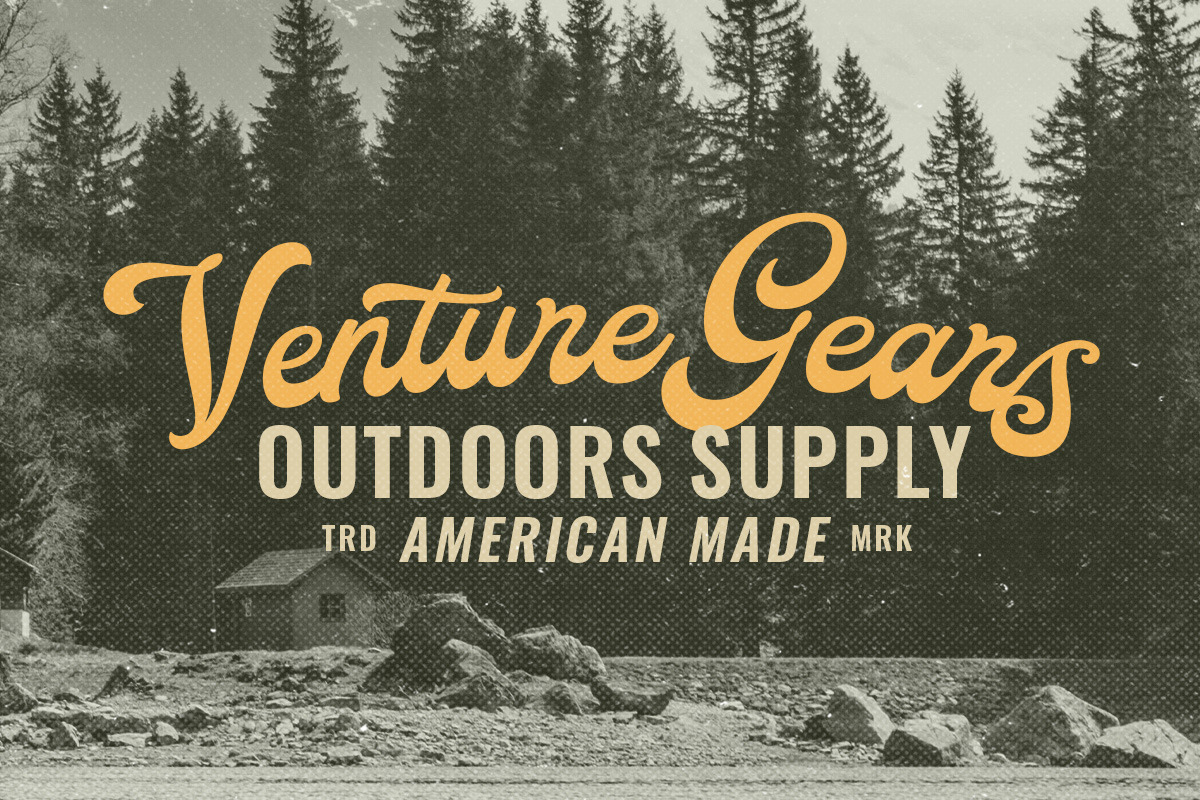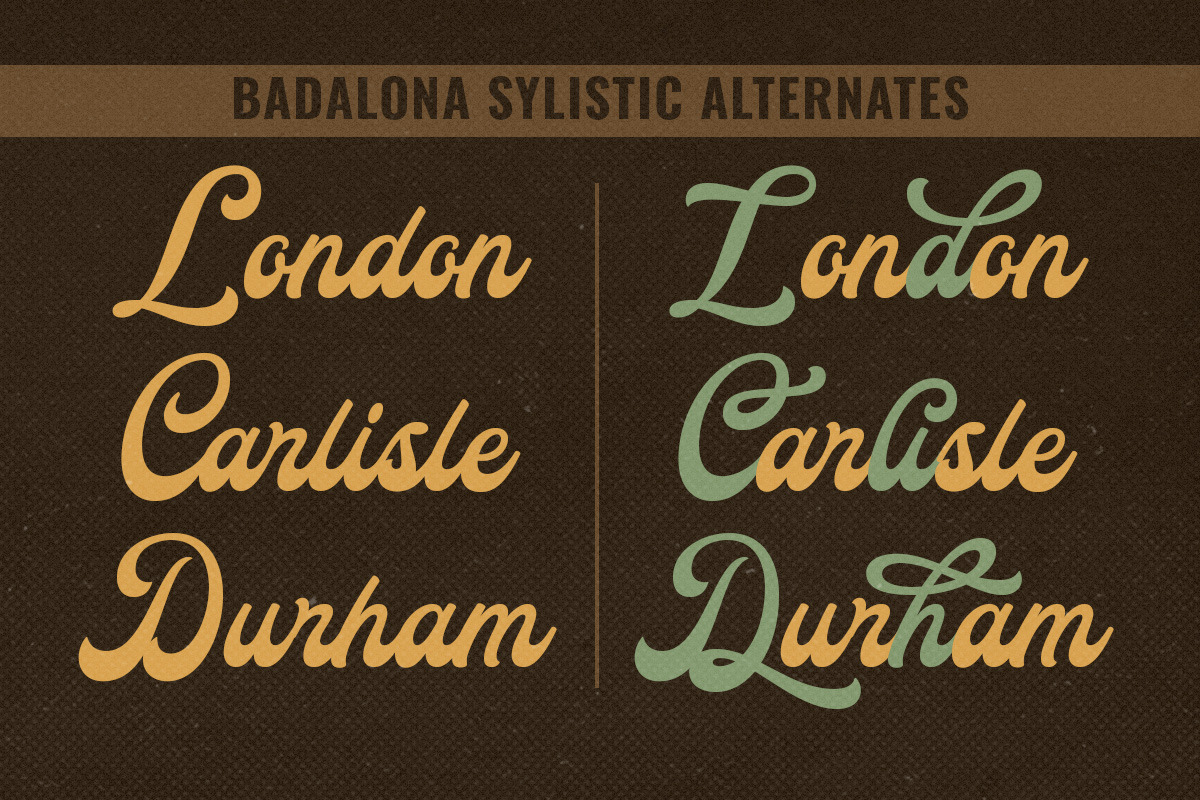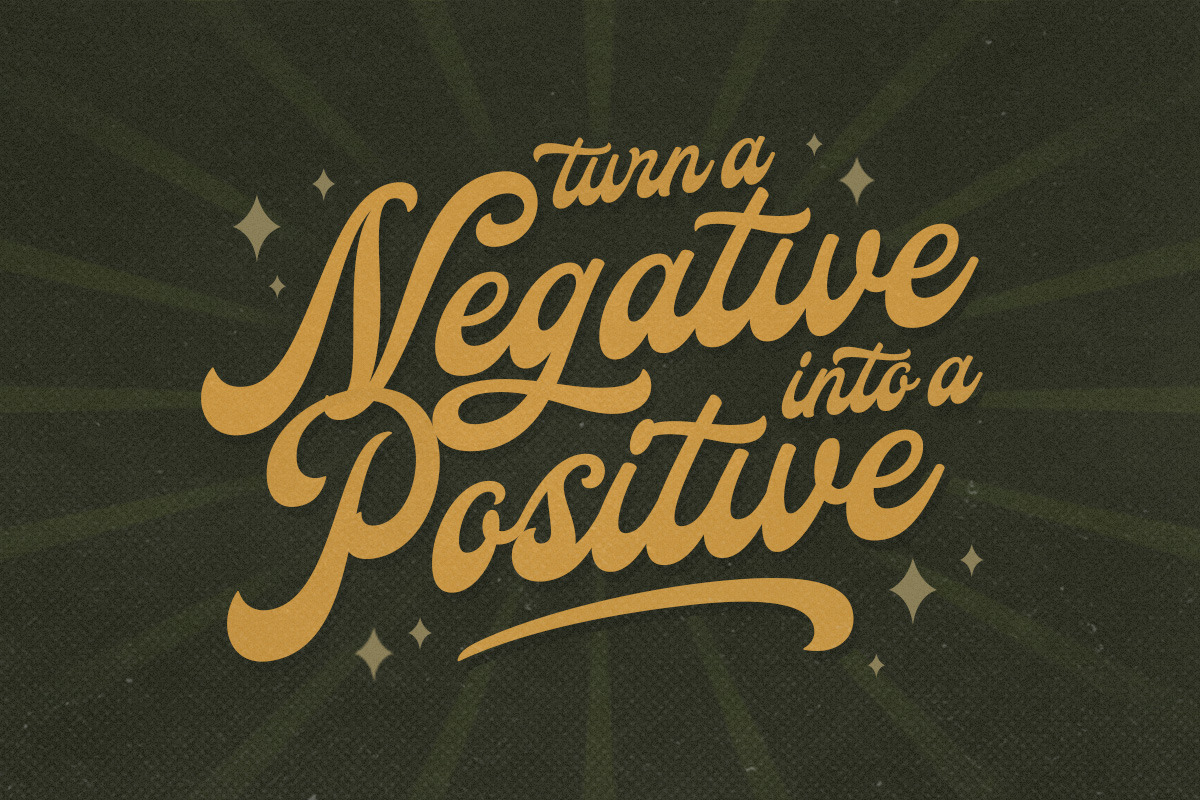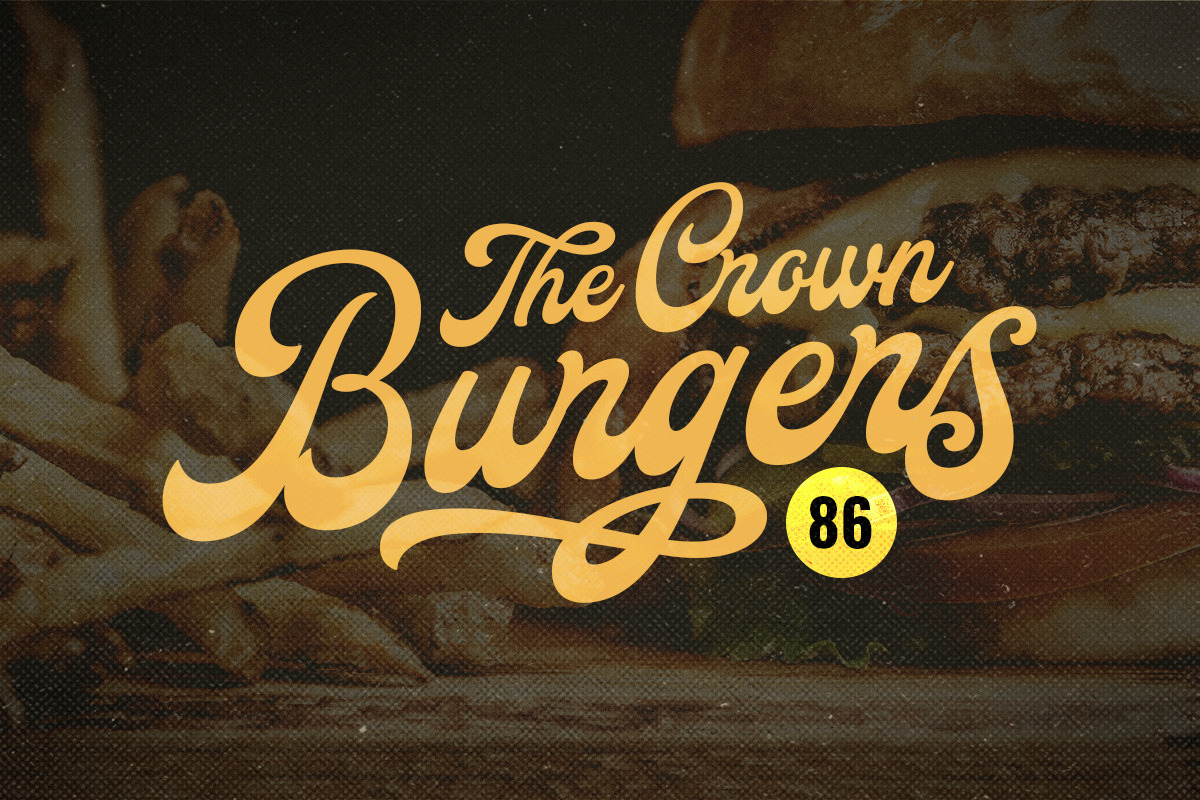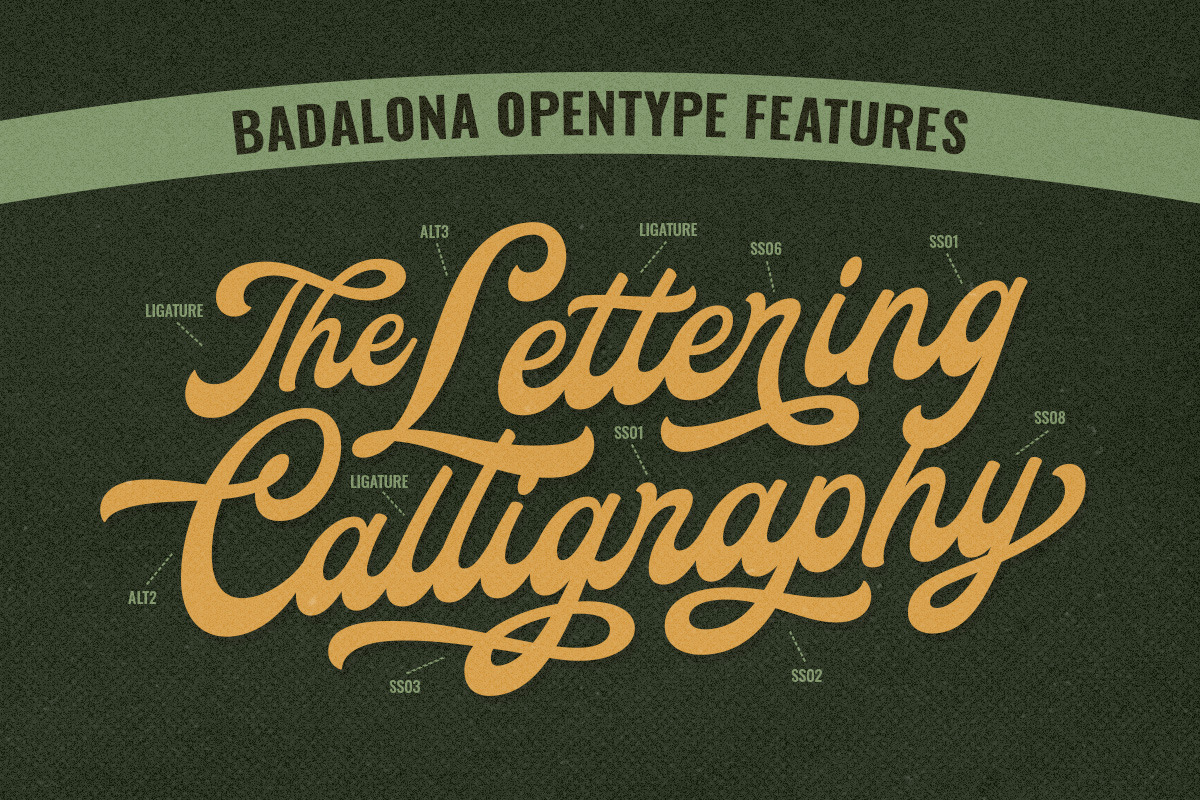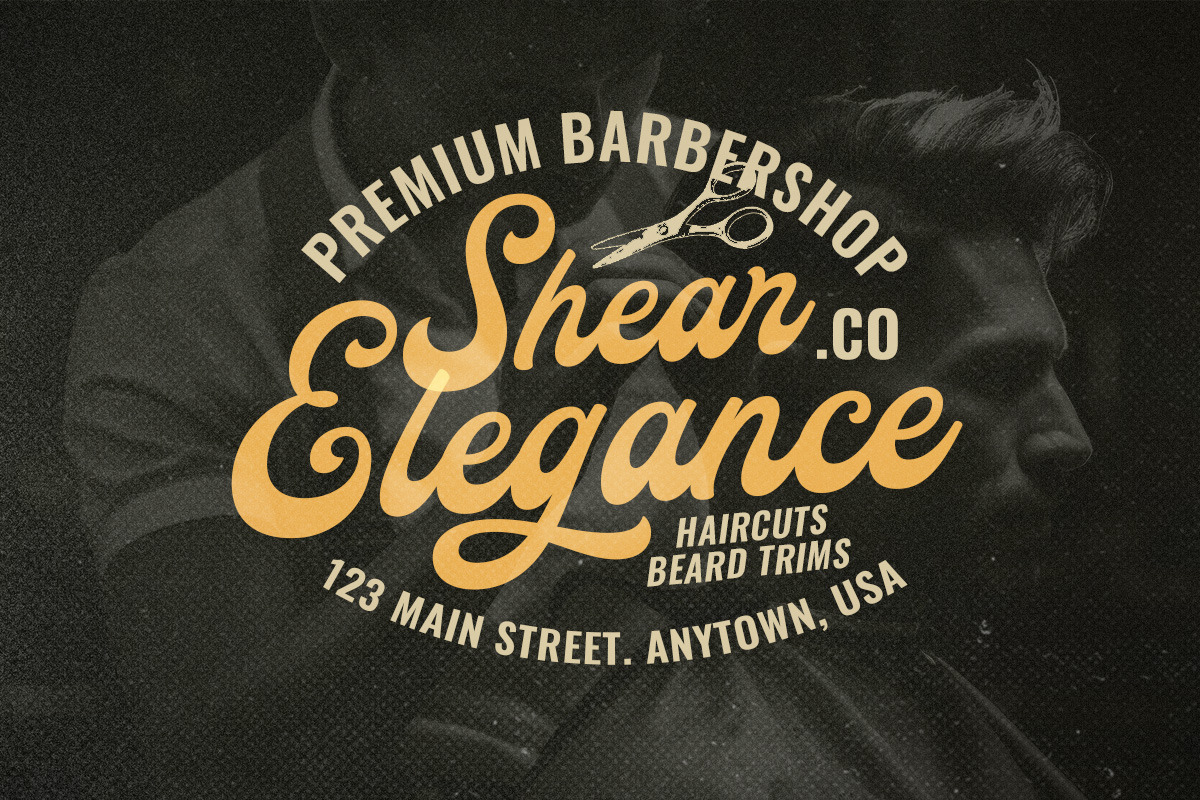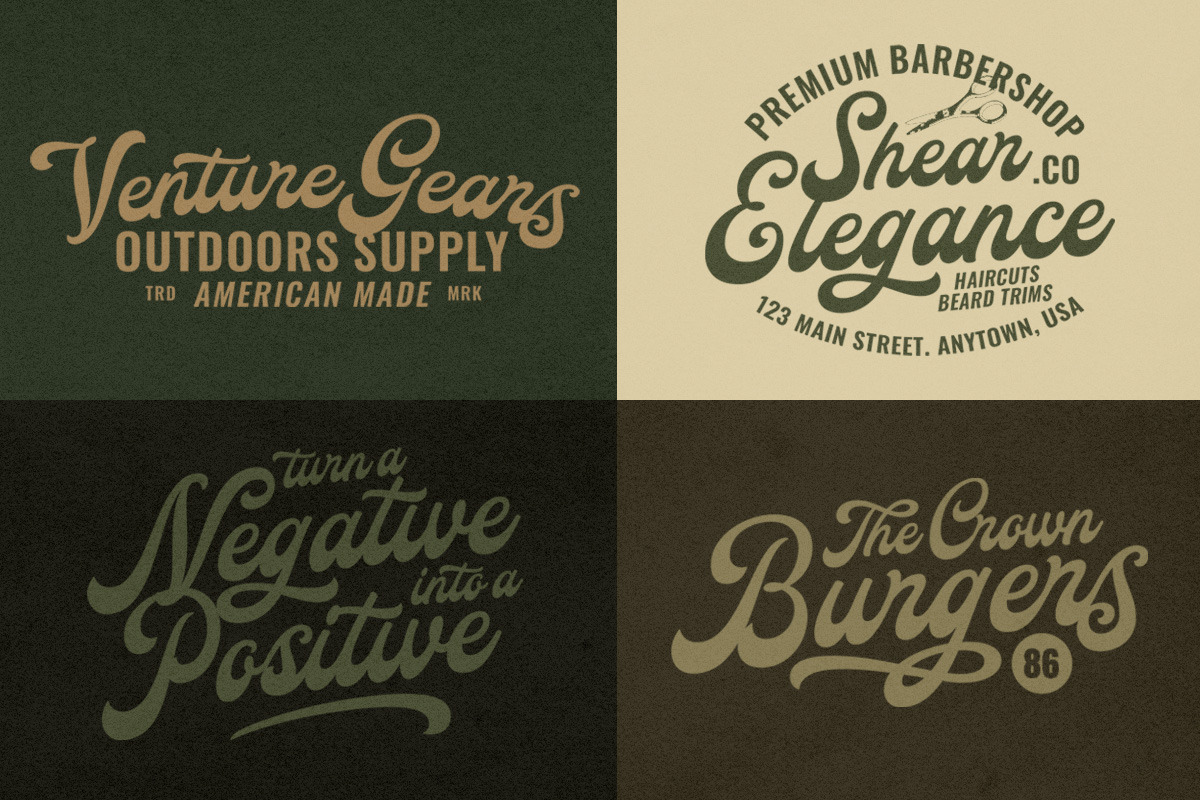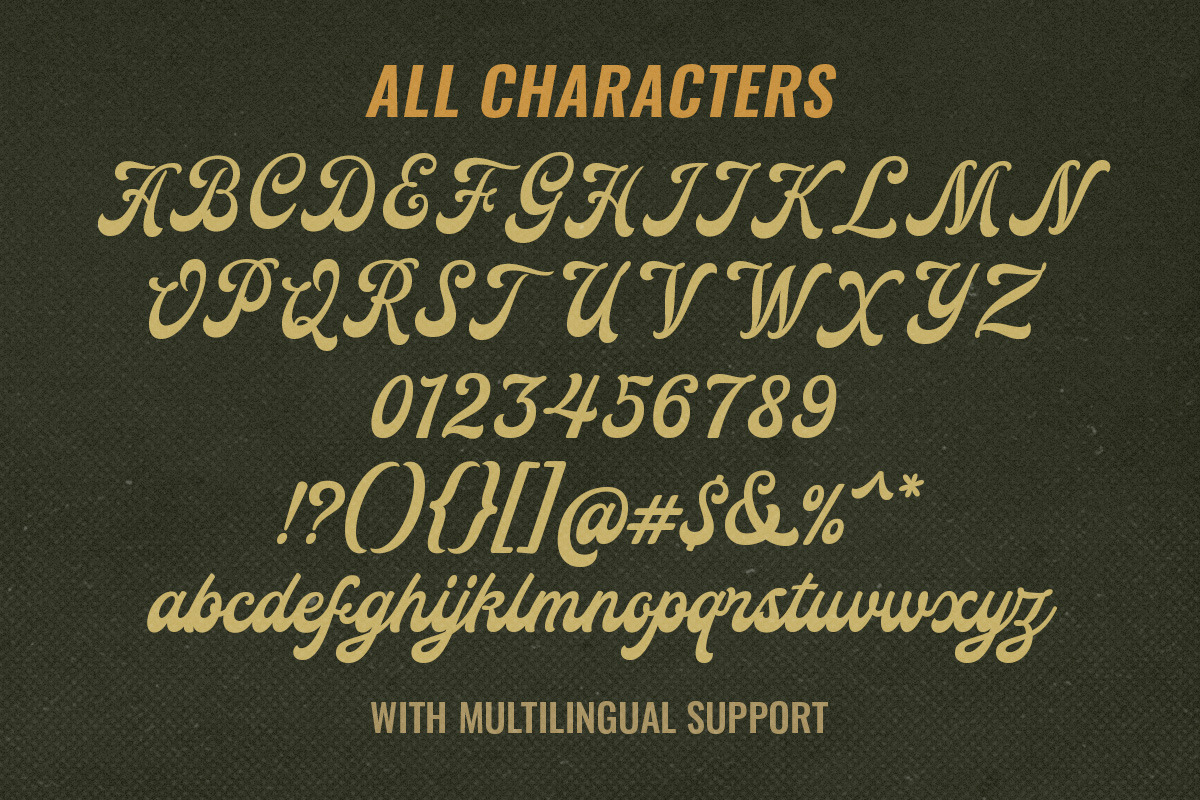
Badalona Display Script
Introducing, Badalona - a standout display script with a touch of classic looks. This type of font perfectly made to be applied especially in logo, headline, signage and the other various formal forms such as invitations, labels, logos, magazines, books, greeting / wedding cards, packaging, fashion, make up, stationery, novels, labels or any type of advertising purpose.